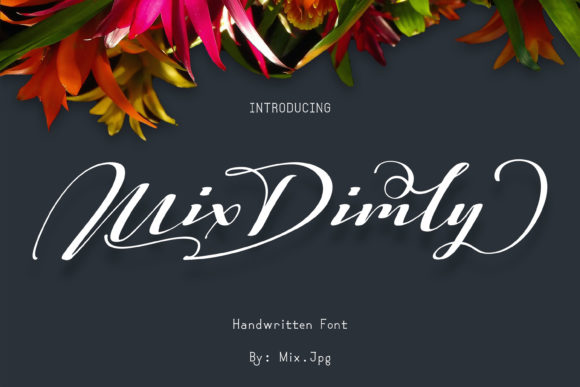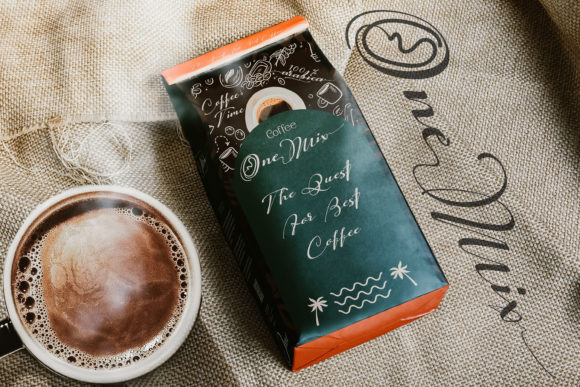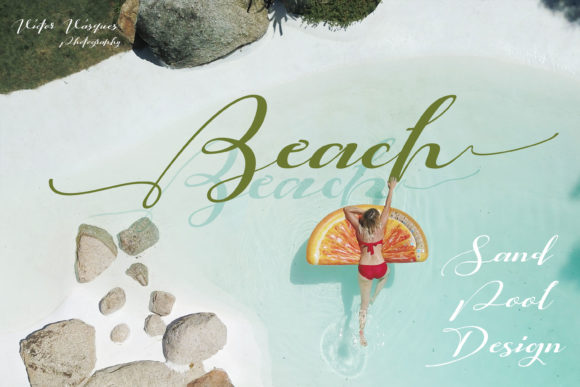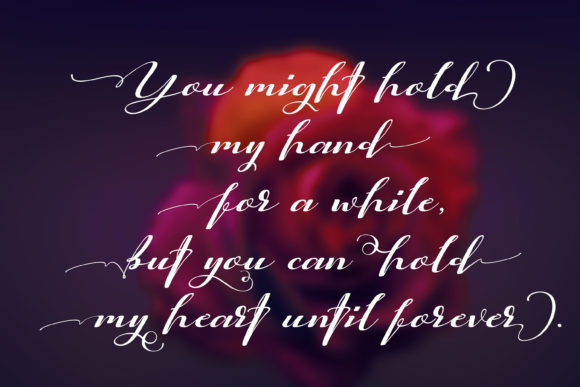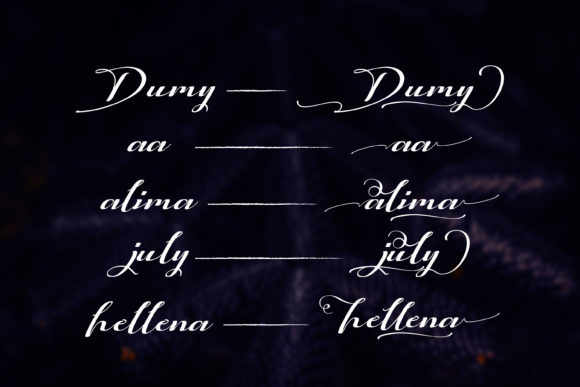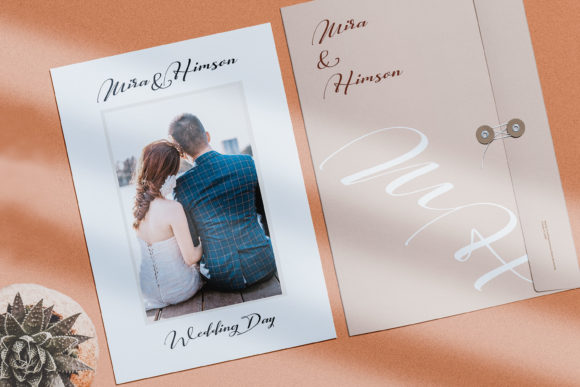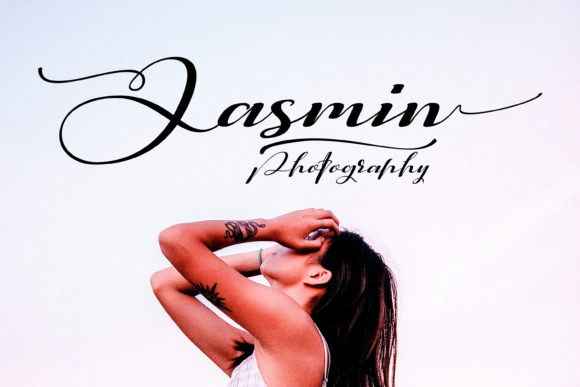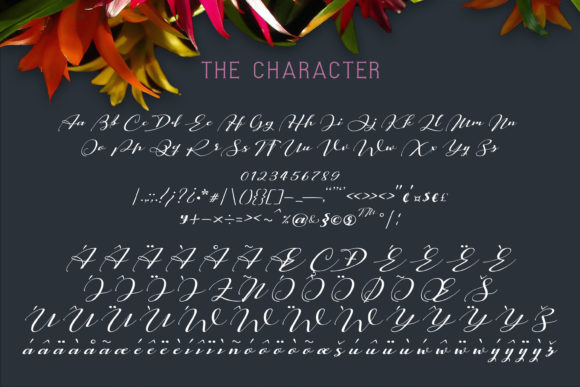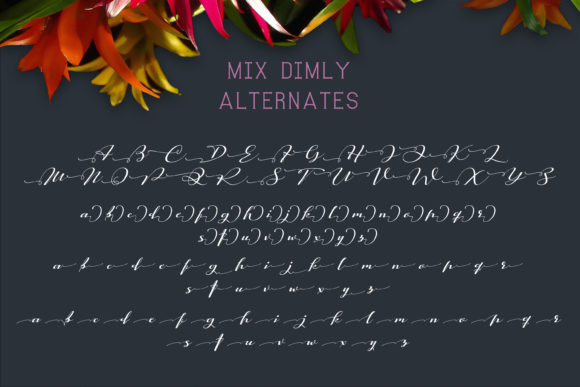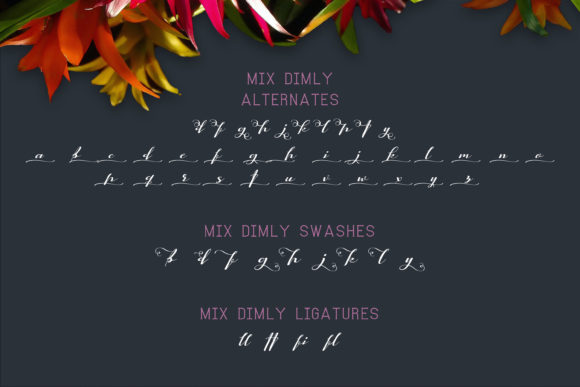
Mix Dimly Font
About Mix Dimly Font
Mix Dimly sounds like a beautiful and versatile handwritten font that can add a touch of elegance and timelessness to a wide range of design projects. Its distinct and delicate style makes it perfect for various applications, and its versatility allows it to shine in different contexts. Here are some creative ideas on how to use Mix Dimly font and bring your designs to life:
1. Wedding Invitations: Create elegant and romantic wedding invitations using Mix Dimly font to set the perfect tone for the special day.
2. Thank You Cards: Design heartfelt and personalized thank you cards with Mix Dimly font to express gratitude in a charming and stylish way.
3. Quotes and Typography Art: Utilize the font to create stunning typography art featuring inspirational quotes or phrases.
4. Greeting Cards: Design beautiful and unique greeting cards for various occasions using Mix Dimly font.
5. Logos and Branding: Incorporate the font into logos and branding materials to add a touch of sophistication and personality to your brand.
6. Business Cards: Use Mix Dimly font to create memorable and stylish business cards that make a lasting impression.
7. Social Media Graphics: Design eye-catching and visually appealing social media posts and graphics with the font’s delicate and timeless style.
8. Blog Graphics: Incorporate Mix Dimly font into blog post graphics to create a refined and elegant look for your blog content.
9. Book Covers: Use the font in book cover designs to create captivating and visually appealing typography that complements the book’s theme.
10. Menu Cards: Design elegant and stylish menu cards for restaurants and special events using Mix Dimly font.
11. Product Packaging: Use the font to create refined and visually appealing labels and packaging for various products.
12. Art Prints: Design artistic prints featuring illustrations and typography with Mix Dimly font to create stunning wall art.
13. Apparel Design: Incorporate the font into t-shirt designs, hoodies, and other apparel to add a touch of elegance to your clothing line.
14. Event Invitations and Announcements: Create eye-catching and sophisticated invitations and announcements for events and celebrations using Mix Dimly font.
15. Personal Stationery: Use the font to create beautiful personal stationery, including note cards, envelopes, and thank-you cards.
16. Calendars: Design elegant and artistic calendars featuring Mix Dimly font to stay organized in style.
17. Wedding Signage: Design stylish and elegant wedding signage, such as welcome signs and seating charts, using the font’s timeless look.
18. Digital Marketing: Utilize the font in digital marketing campaigns to create visually captivating and sophisticated content.
19. Scrapbooking: Incorporate Mix Dimly font into scrapbooking layouts to add elegant captions and titles to your memories.
20. Home Decor: Use the font in DIY home decor projects, such as creating custom wall art or decorative signs.
In conclusion, Mix Dimly is a distinct, delicate, and timeless handwritten font that offers a touch of elegance and charm to various design projects. Its versatility allows it to shine in different applications, from wedding invitations and logos to social media graphics and beyond. Whether you’re designing for special events or everyday projects, Mix Dimly font is a wonderful choice to elevate your designs and add a handwritten touch that stands out.